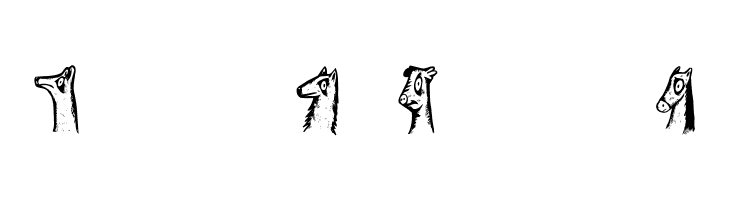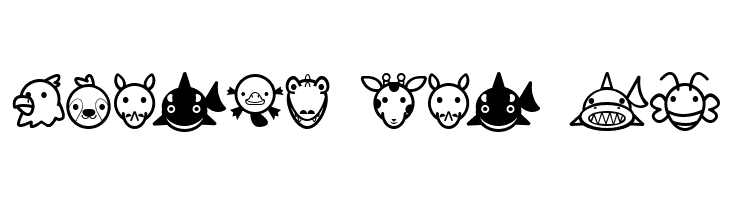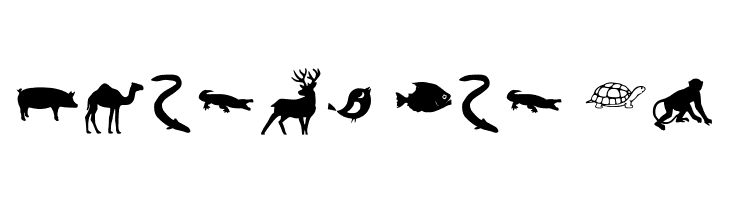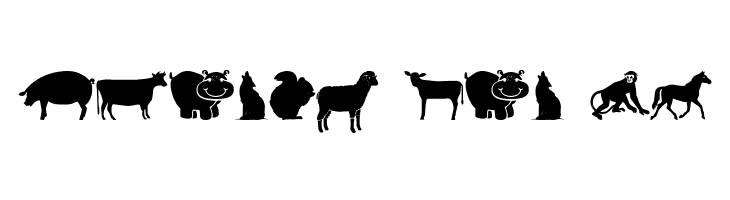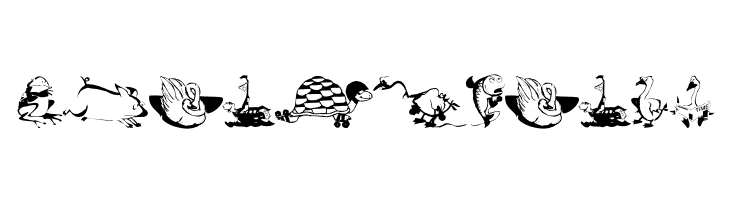
Kawai Animal Font
A playful handwritten font with elegant curves and loops.
Animal Y Fobt Regular Font
Animal-themed silhouette dingbat font.
Woodcutter Animal Faces Font
Hand-drawn animal-themed decorative font with playful, cartoonish illustrations.
AnimalSilhouettesThree Font
A decorative symbol font featuring detailed black animal and human silhouettes.
Animales Regular Font
A playful font featuring cartoonish animal faces with bold, rounded designs.
font3046 Font
Hand-drawn dingbat font with quirky animal and character icons.
Animality Regular Font
A decorative font with each letter illustrated as an animal head.
CrazyMessyLife_ Font
A playful, hand-drawn font with irregular strokes and a whimsical style.
Animals Font
An elegant script font with flowing, cursive style and intricate swashes.
Cute Animals Font
A playful, hand-drawn font with tall, narrow letters and consistent stroke width.
Ocean Animal Font
Bold, playful font with ocean animal motifs in each character.
Animal Print Font
A bold, patterned decorative font with irregular shapes inside each letter and number.